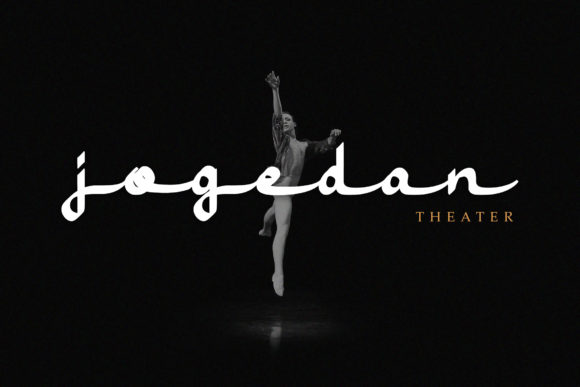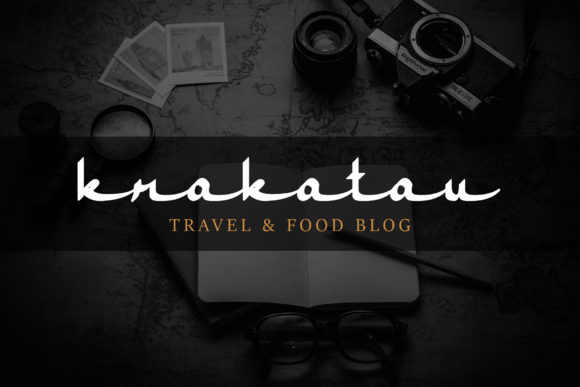
Jasmine Script Font – Free Download
Introduction to Jasmine Script Font
Jasmine is a stunning monoline script with a distinct look.
It evokes the look of Arabic typography, making it a unique font .
Key Features of Jasmine Script Font
Why Choose Jasmine Script Font?